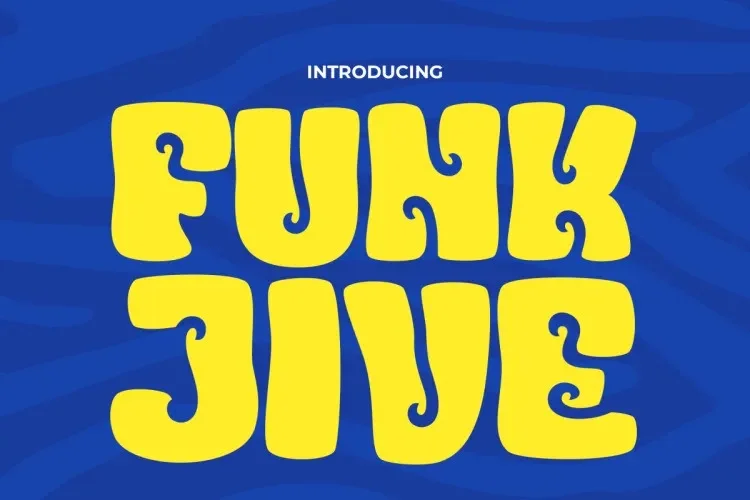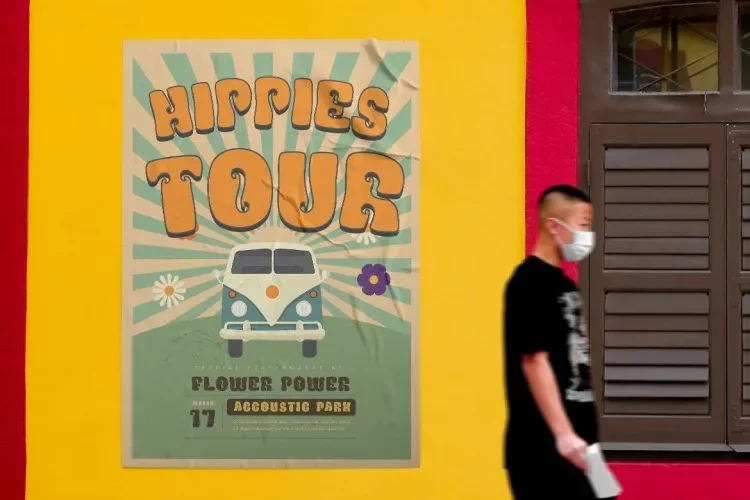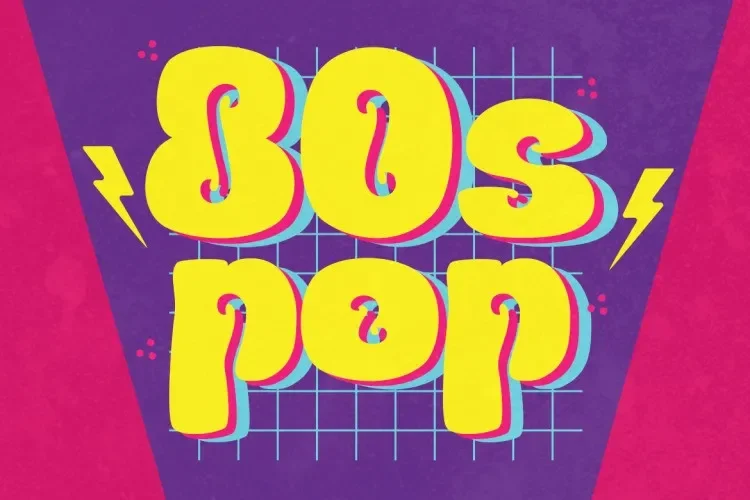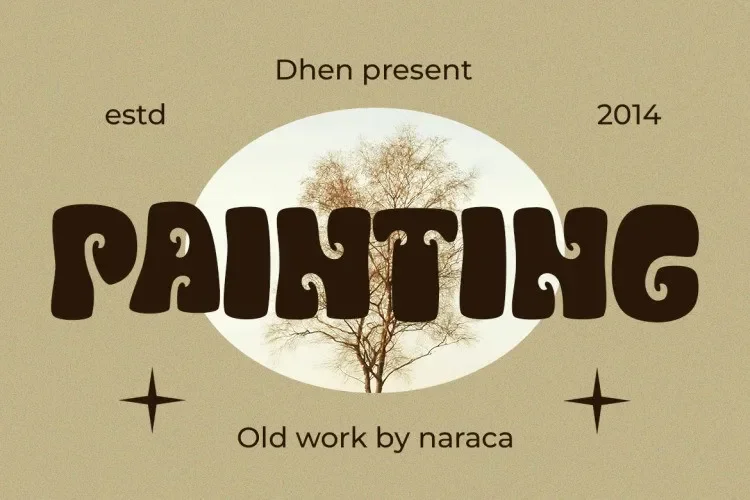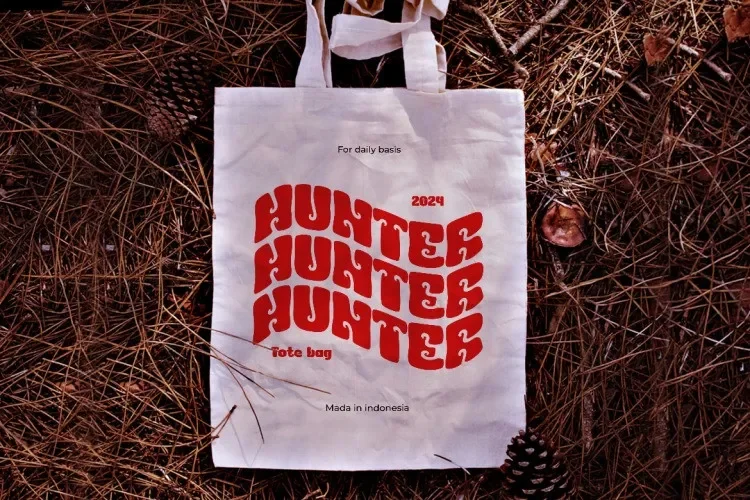
Funk Jive Font is a display typeface designed to support expressive layouts where standard fonts feel too rigid. Designers often use it for branding and graphics that need a retro or energetic tone while remaining readable at headline sizes.
Funk Jive features rounded letterforms, thick strokes, and playful curves inspired by retro typography. The font maintains consistent weight and spacing, which helps preserve legibility in posters, logos, and social media content. It is built for short text rather than paragraphs and typically includes uppercase letters, numerals, and punctuation.